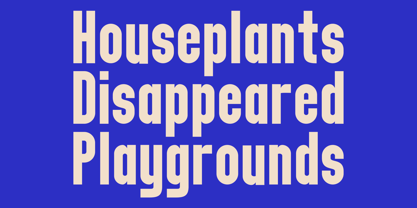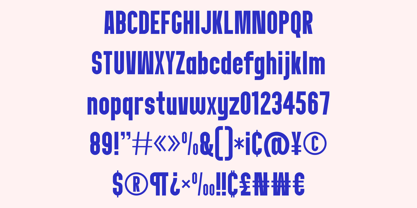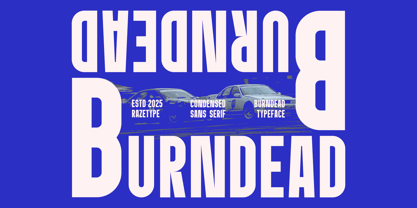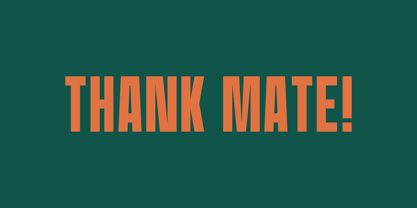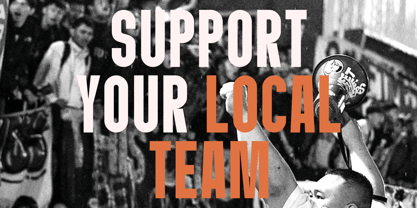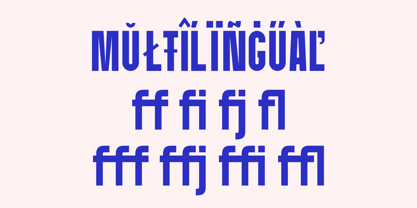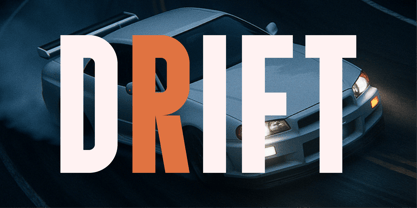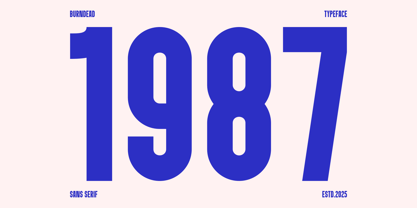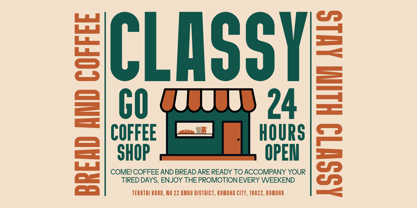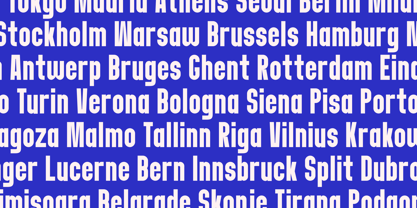
Burndead
by Razetype
The Burndead Font Family was designed by Ahmad Faizal and published by Razetype. Burndead contains 1 styles. More about this family
Introducing Burndead is a bold and dynamic condensed sans-serif Font. With its commanding vertical structure and assertive presence, Burndead embodies a modern typographic style that merges utility with bold visual impact. Its condensed form makes it especially effective for maximizing space while maintaining strong legibility, ideal for headlines, editorial layouts, branding, and impactful signage. Its high-performance aesthetic—evoking motorsport culture, urban dynamism, and digital media—makes Burndead particularly suitable for brands that seek a modern, assertive identity. Whether used in motion graphics, posters, or product packaging, Burndead communicates energy, confidence, and clarity with every glyph.